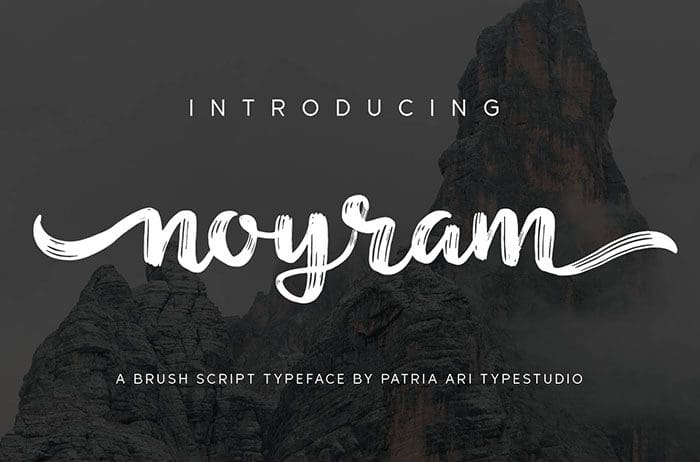
Noyram Script Font
Noyram is a strong brush Script Font with stunning alternate glyphs. It is perfect for branding projects, logo, product designs, label, and any projects that you work on. Thanks to Patria Ari Typestudio for sharing this font! Take a look at this portfolio for more of his stunning fonts.